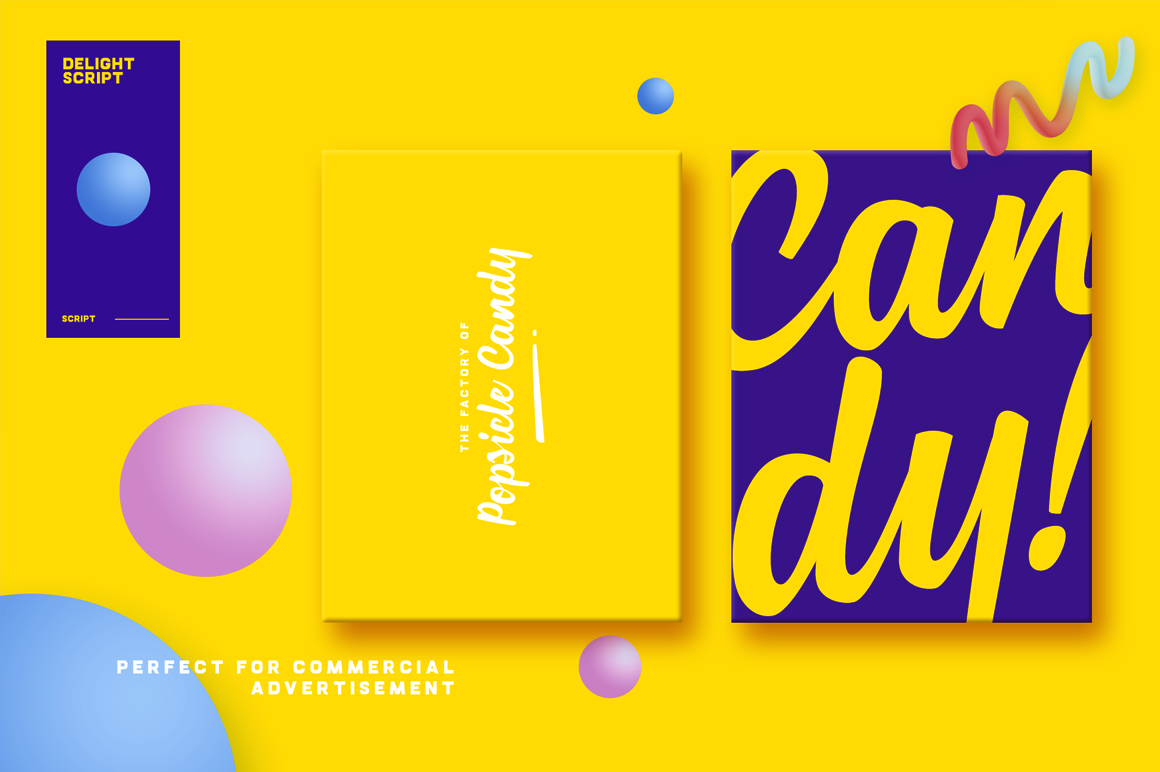
Marana Font Duo
Marana • Pop Sweet Script & Display Typeface
About this font family Marana is a combination typeface between Bold & Script style. A younger brother of the original font family, Cartel Deux. It comes in 2 solid style. Marana is a perfect choice to show your pop visual content.
Designed with simple guideline in mind. Perfectly suited for graphic design and any display use. It could easily work for web, signage, corporate as well as for editorial design.